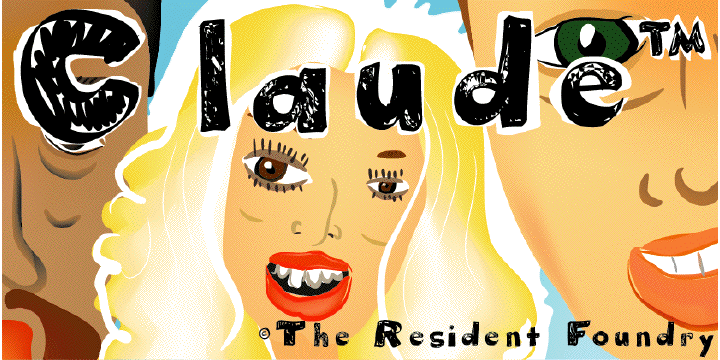
Claude
from Resident
Designed by: V.H. Fleisher
Designed when: 2007
Claude
Created in 2007 by V.H. Fleisher, the Claude font is hand-drawn.
Claude is ideal for posters and is legible at small sizes as well.
European characters are included.
Claude Fill is designed to be used with Claude Regular in applications like Adobe Illustrator: copy text made with Claude, paste in back, then change the pasted text to Claude Fill; the two fonts together create a sort of outline and fill (see gallery image).